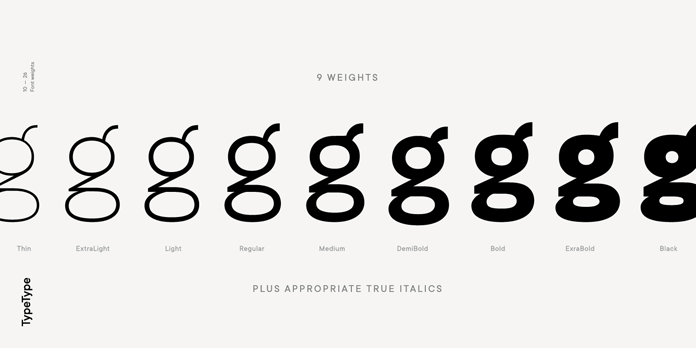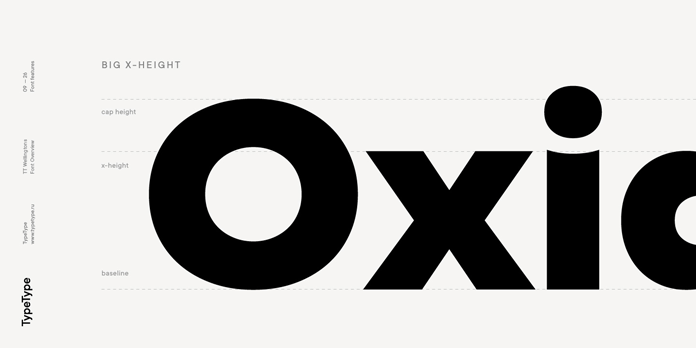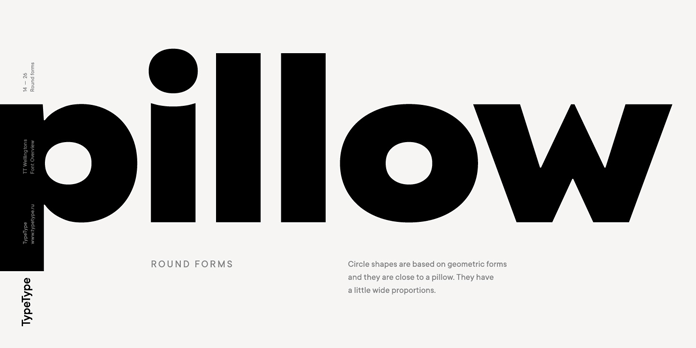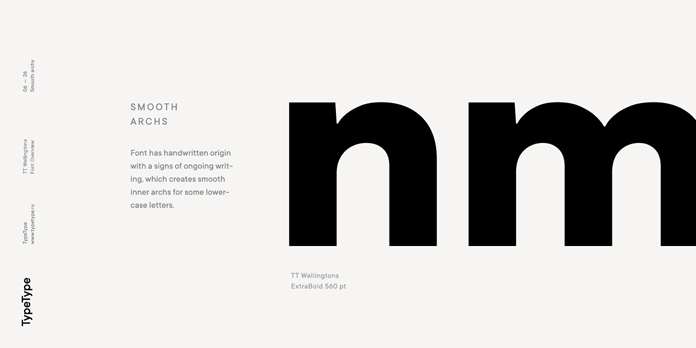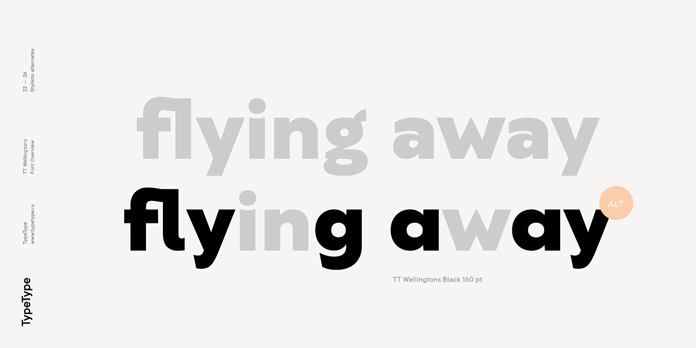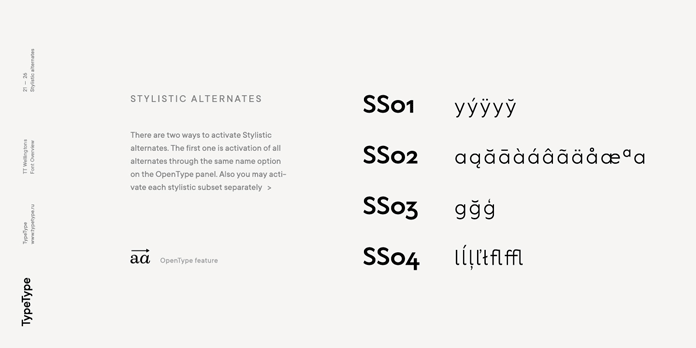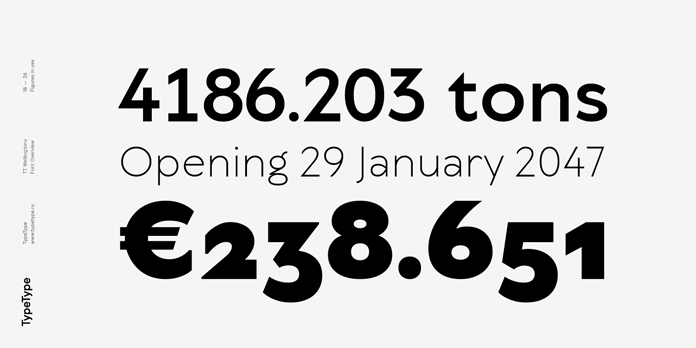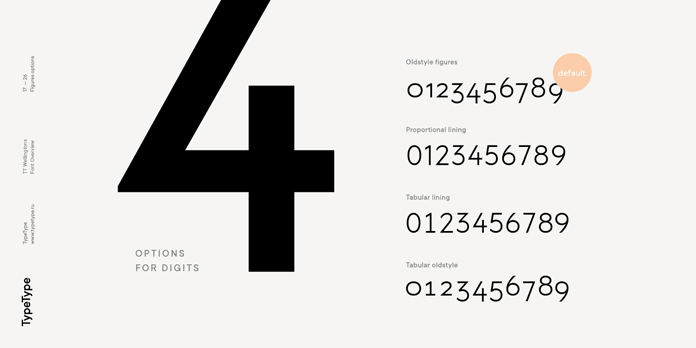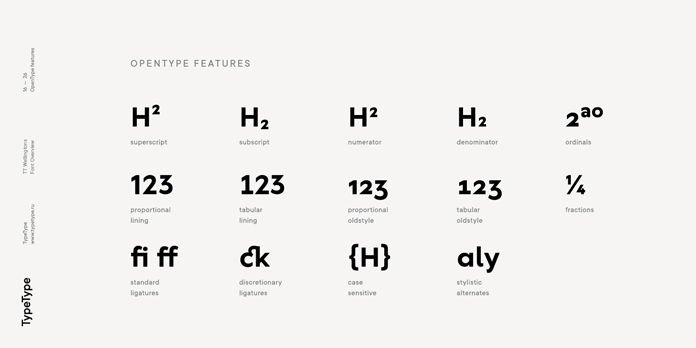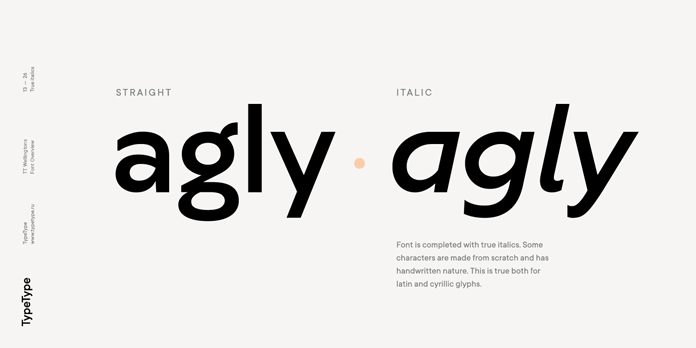
TT Wellingtons, a font family that combines the style of an English humanist sans-serif of the early 20th century with the requirements for contemporary geometric grotesques.
Recently published by foundry TypeType, TT Wellingtons is a font family that consists of 9 weights plus 9 true Italics. It has been designed by Philipp Nurullin and the TypeType team to combine the style of English humanist sans-serifs of the early 20th century with the requirements for contemporary geometric grotesques. Their aim was to retain the feeling of a hand-crafted typeface while creating a design that’s highly functional and simple. The TT Wellingtons font family contains several features of both traditional and modern type specifications. Along with countless OpenType features, the family comes with an extensive set of alternates, ligatures, and other useful features.